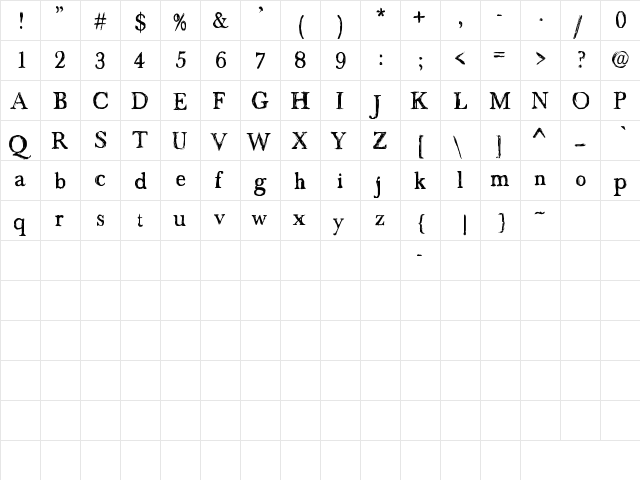
maenan2 Regular
Design Context for maenan2 Typeface
maenan2 is a composed and adaptable typeface that performs quietly and consistently across a wide range of design contexts.